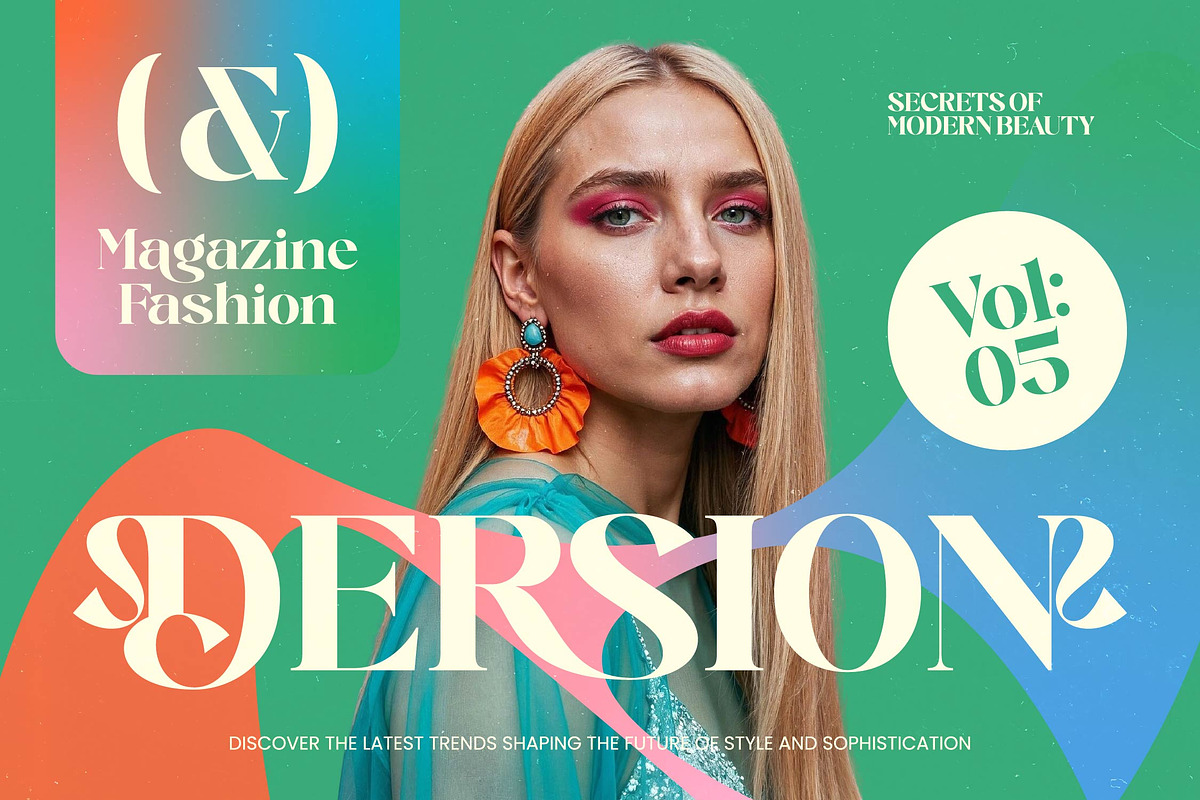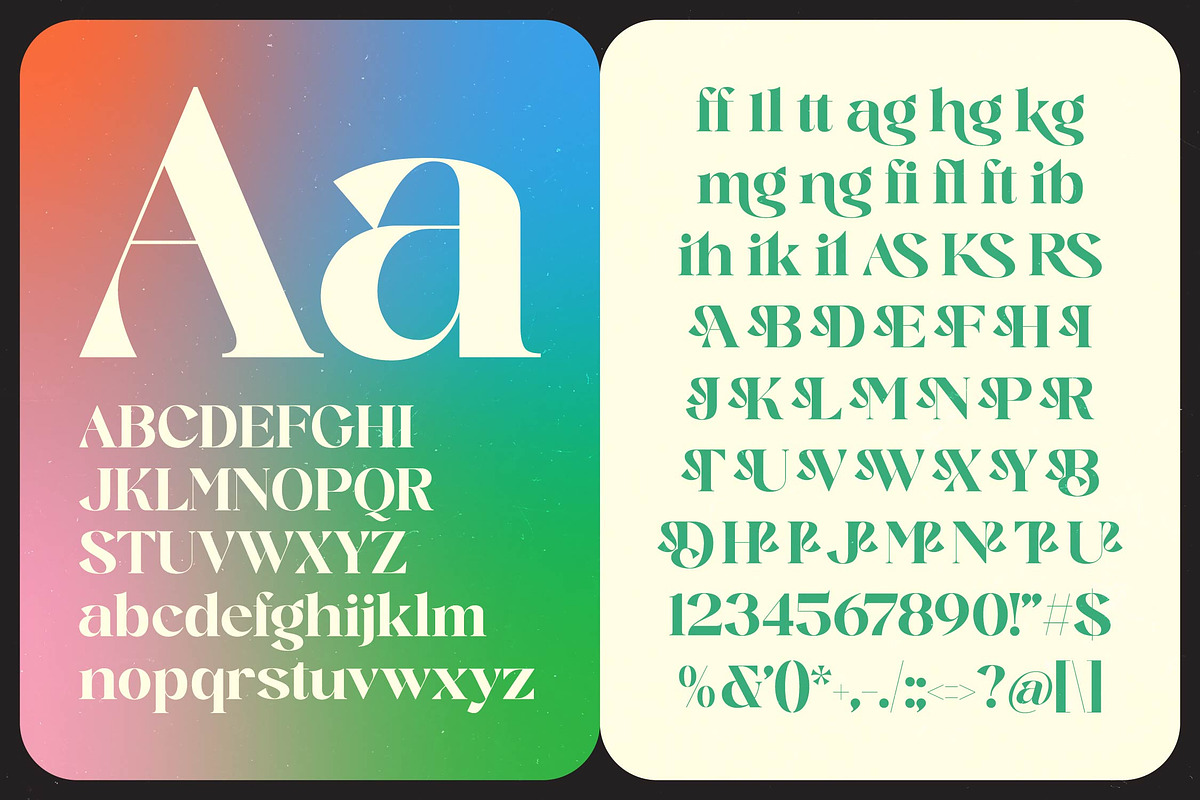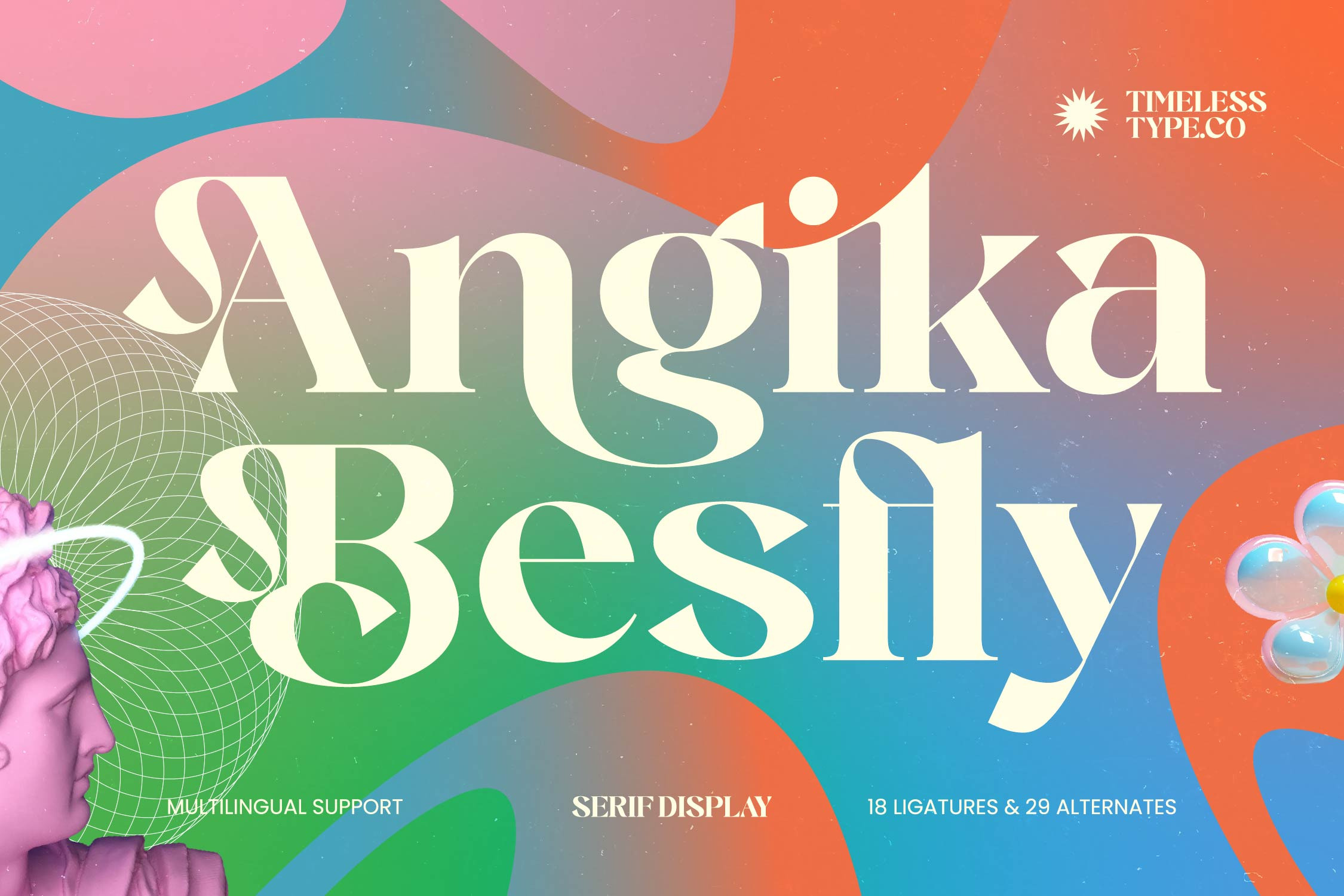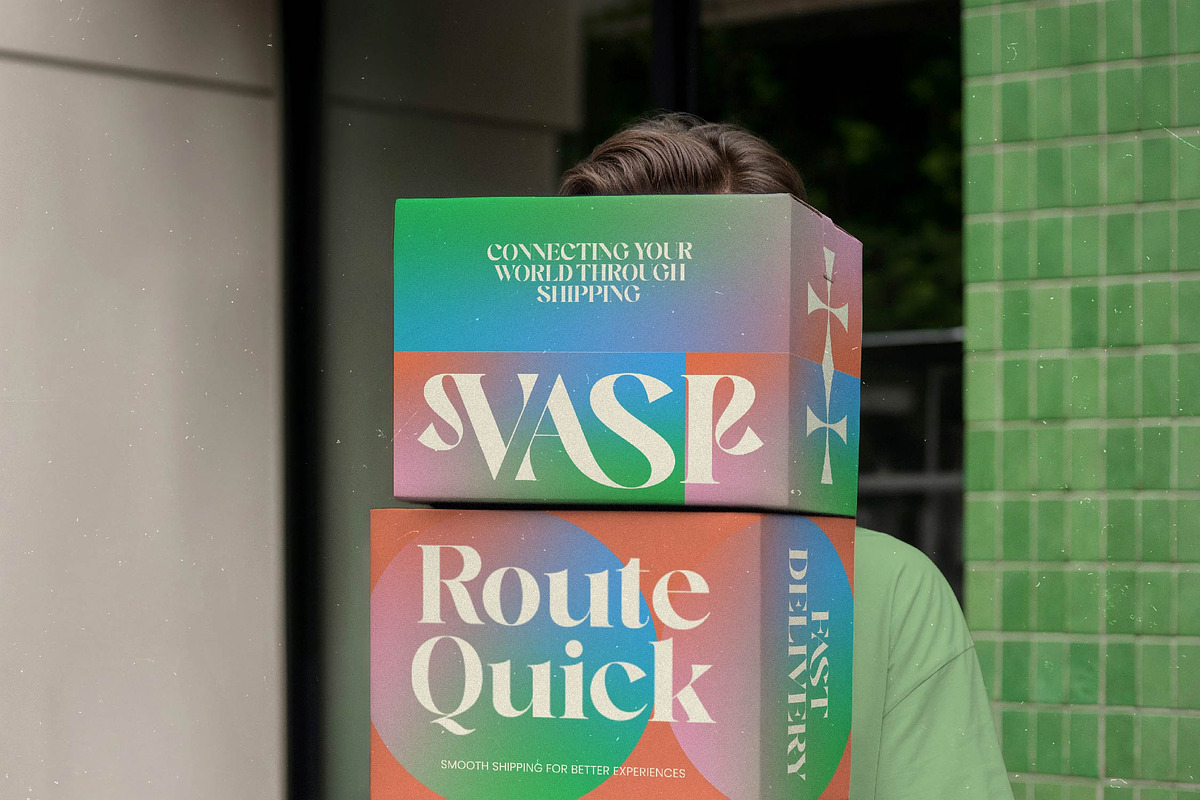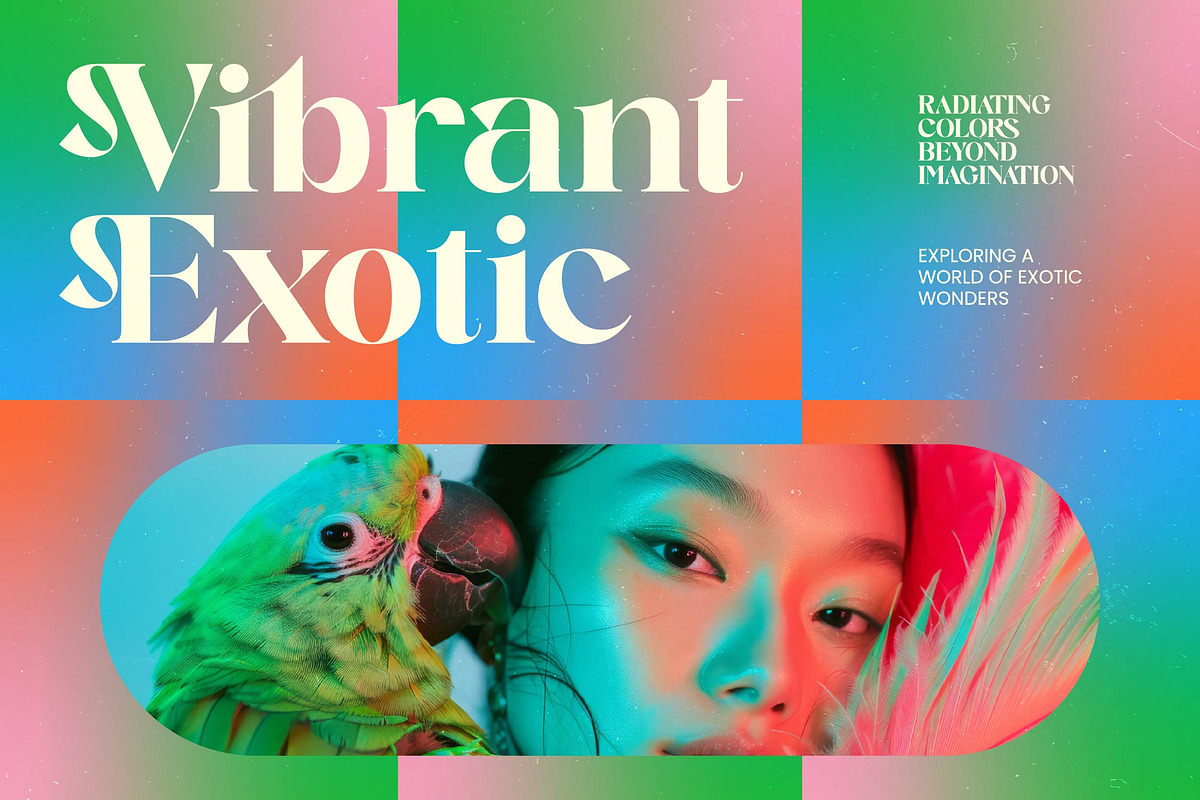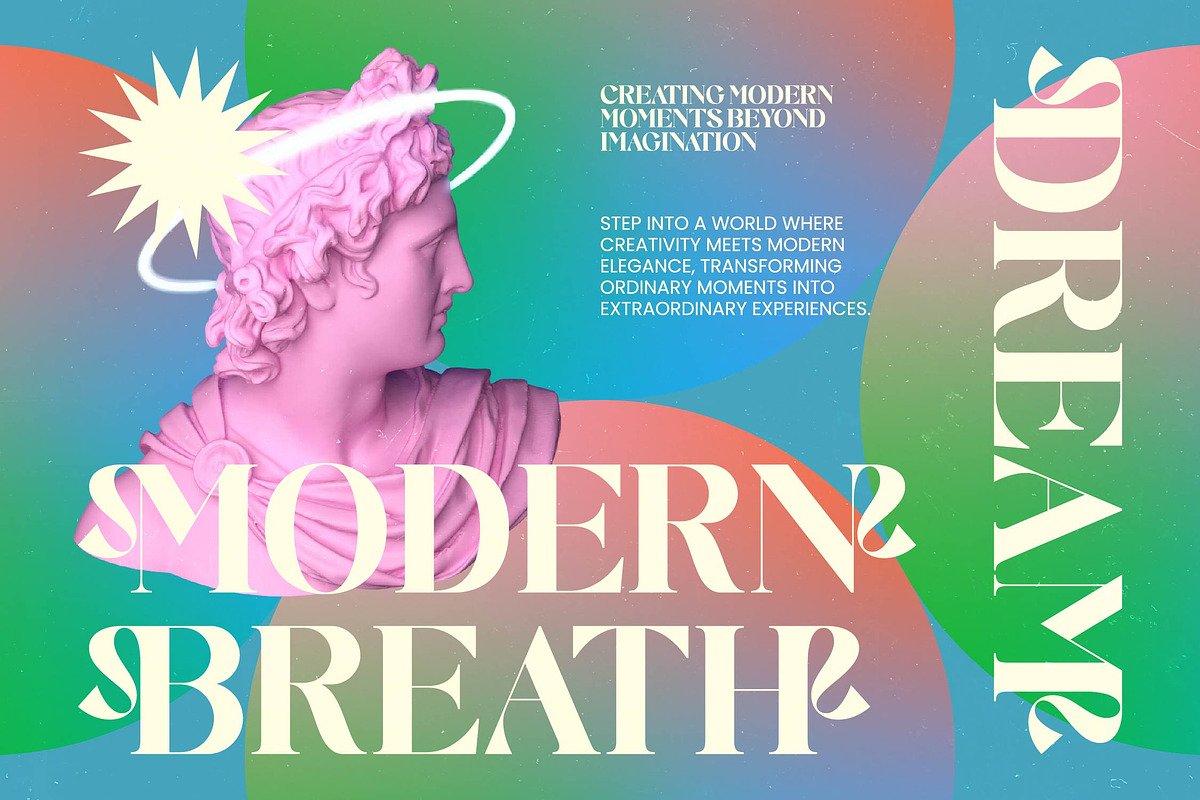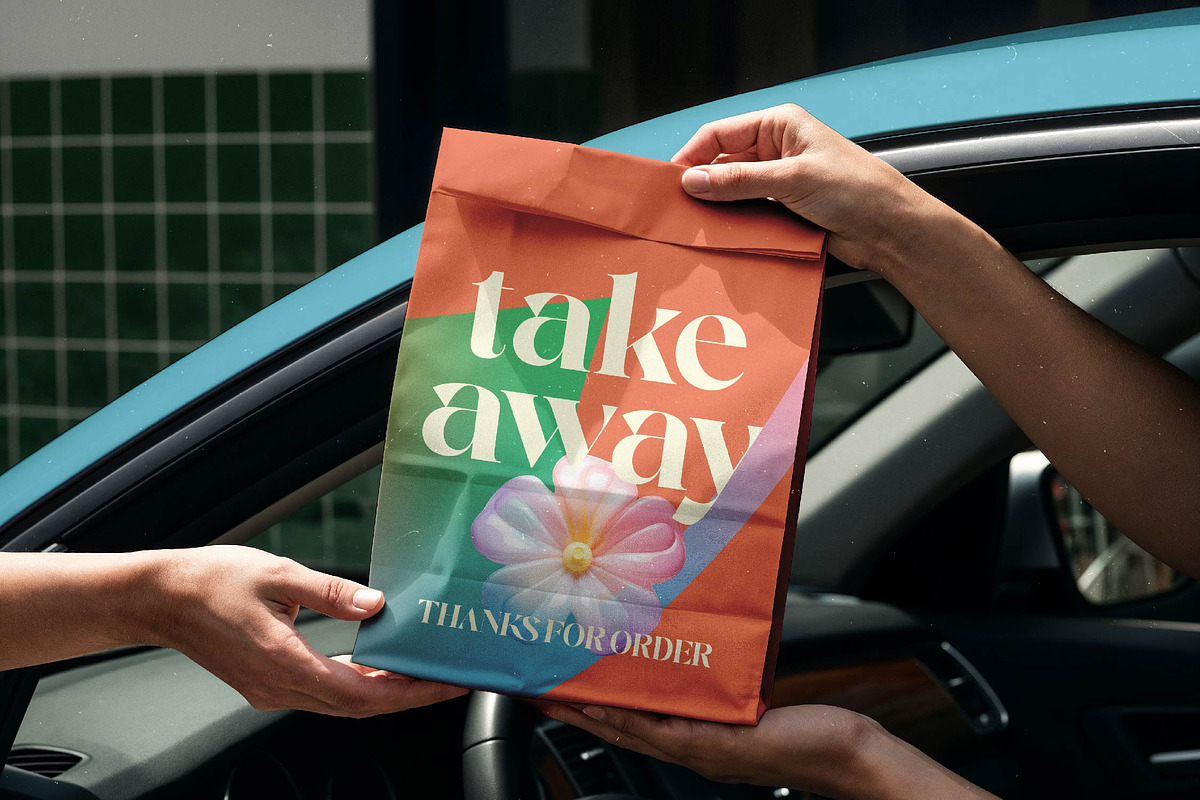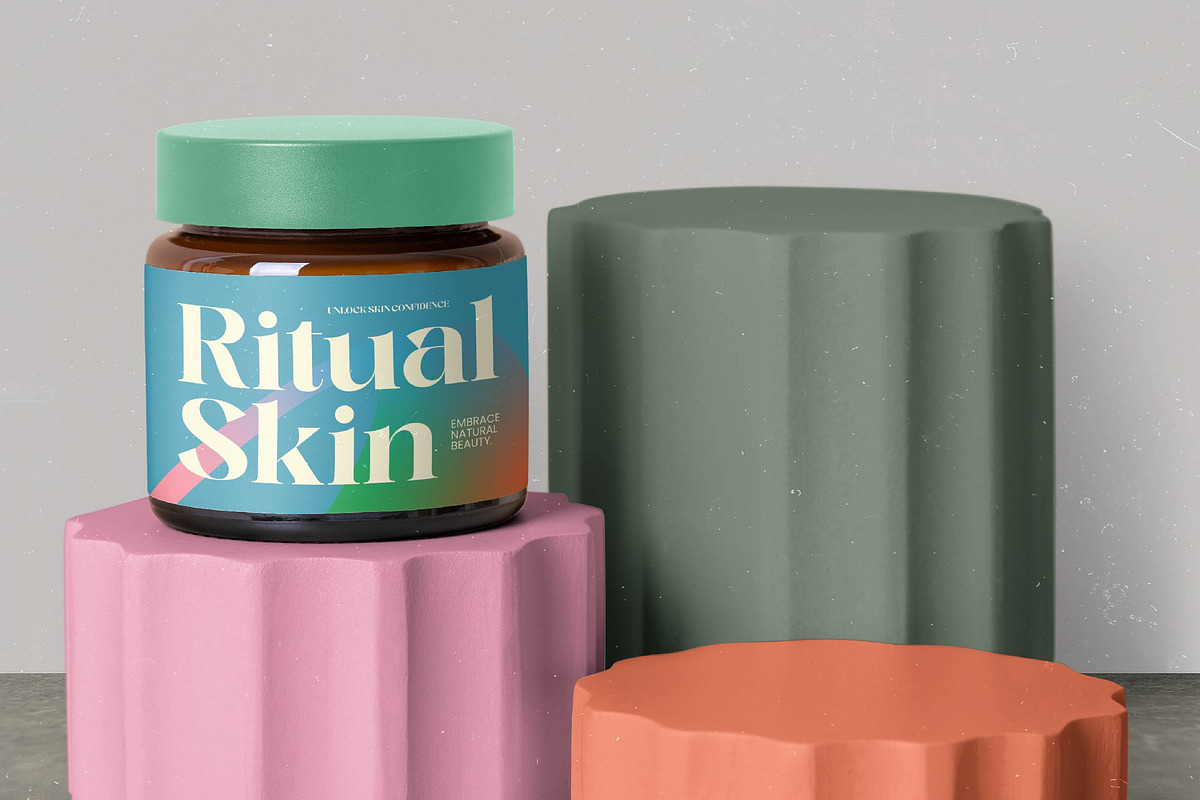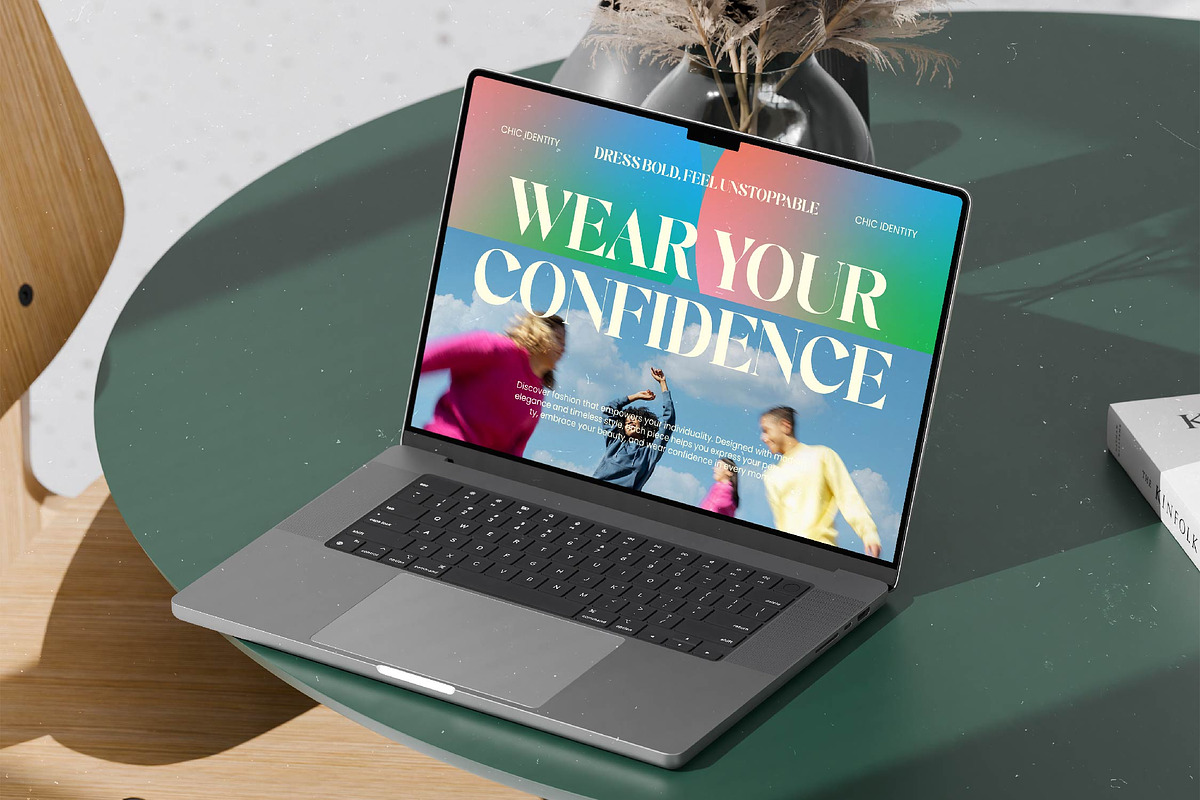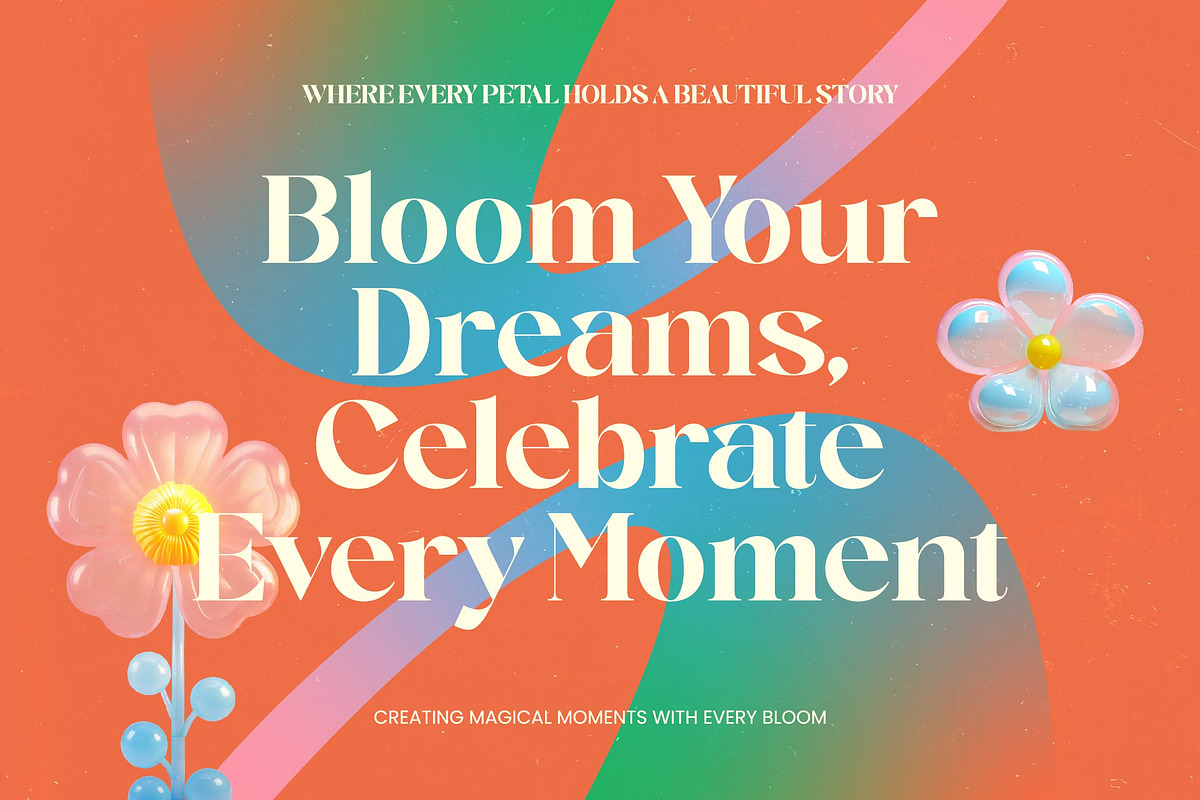
Angika Besfly Serif Display Font
Angika Besfly - Serif Display Font , Elevate your creative vision with a typeface that embodies sophisticated elegance and modern flair. Angika Besfly - Serif Display Font is a masterpiece of modern typography, blending high-contrast strokes with graceful fluid curves. This premium serif font offers a striking visual balance that commands attention, making it the definitive choice for designers seeking a luxurious aesthetic that feels both timeless and contemporary.
Experience unparalleled design flexibility through a rich suite of character options and global accessibility. Featuring 18 unique ligatures and 29 distinct alternates, Angika Besfly - Serif Display Font empowers you to craft truly customized and dynamic layouts. With its extensive multilingual support, Angika Besfly - Serif Display Font adapts seamlessly across global markets, making it incredibly versatile for international projects and ensuring your message resonates with diverse audiences.
Precision-engineered for high-impact visual storytelling, this font excels in prestigious environments. Angika Besfly - Serif Display Font is perfect for luxury branding, high-end editorial design, sophisticated packaging, and fashion magazine covers. It is also an ideal selection for logo design, web headers, and advertising campaigns where a bold, memorable identity is required to capture the viewer's imagination and establish brand authority.